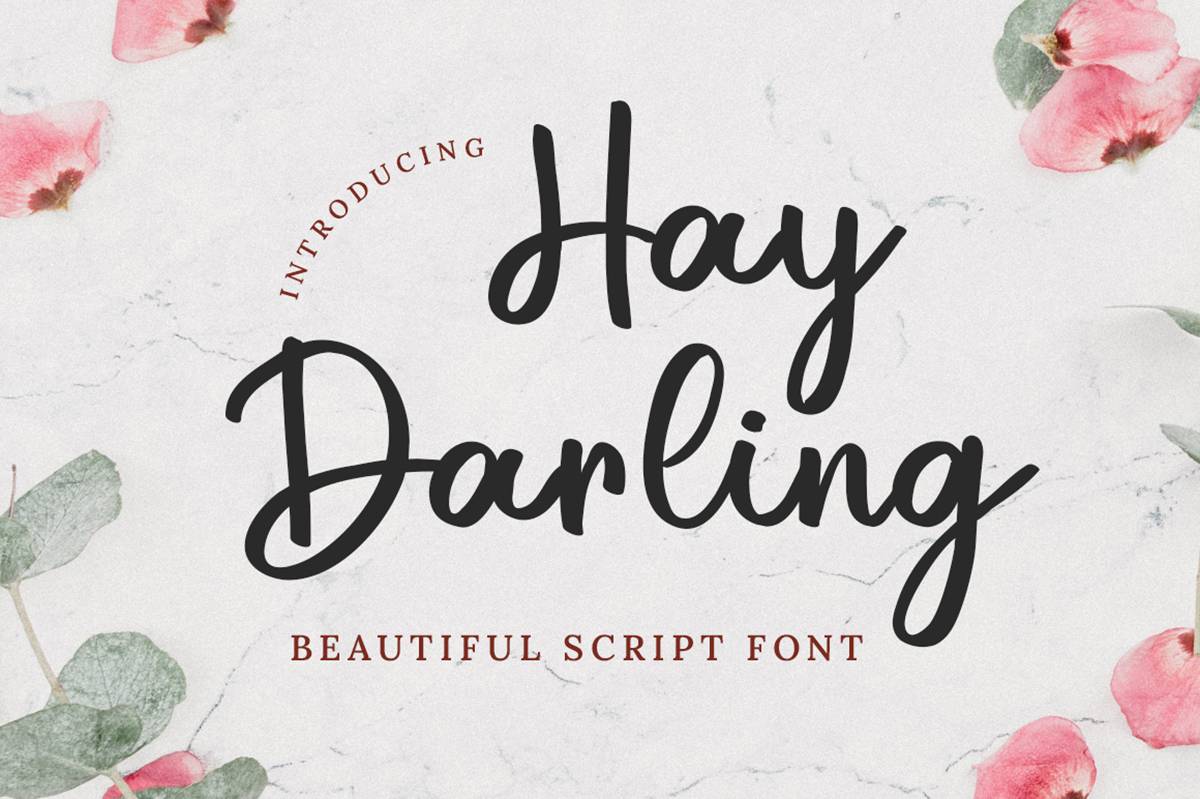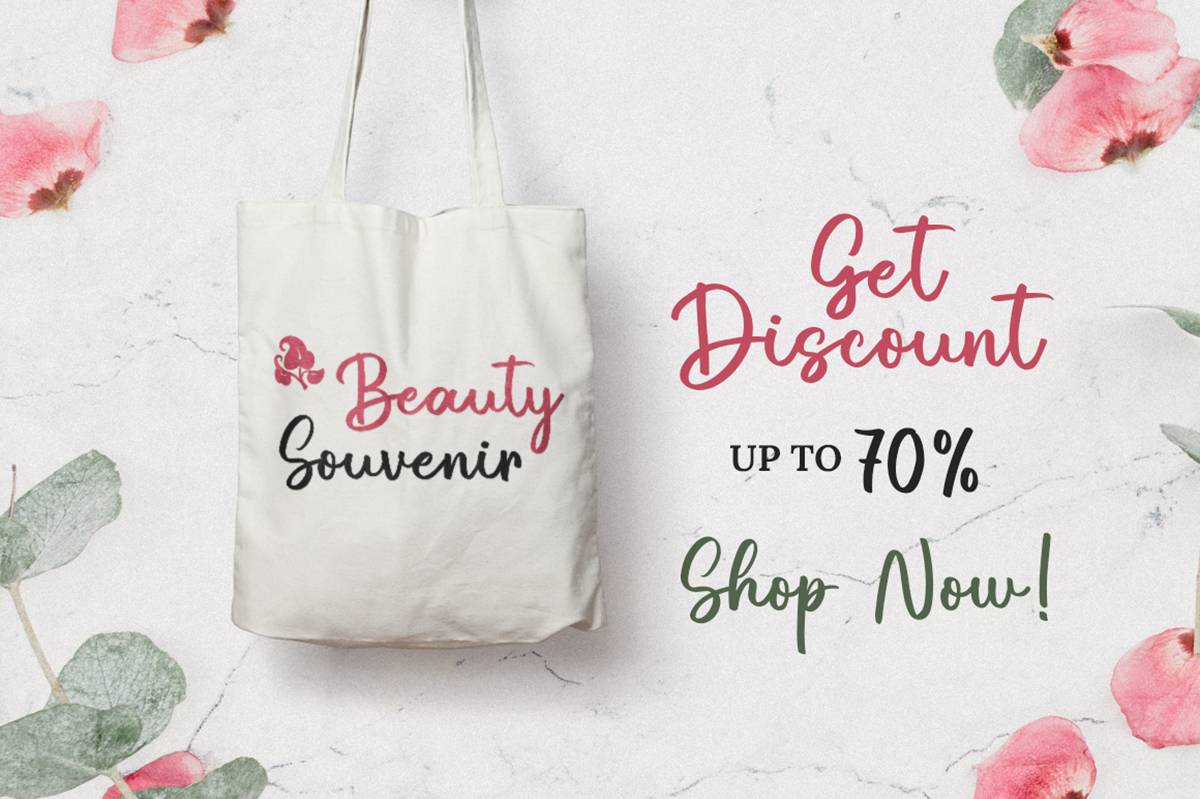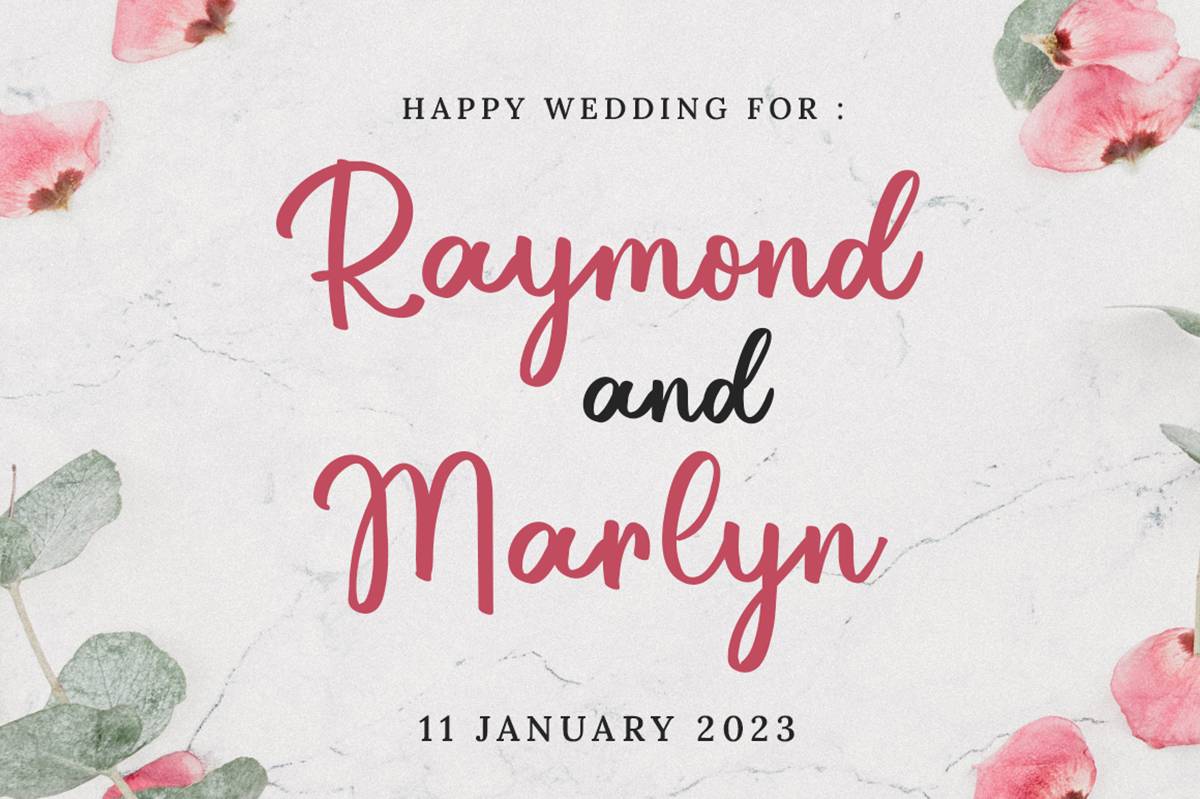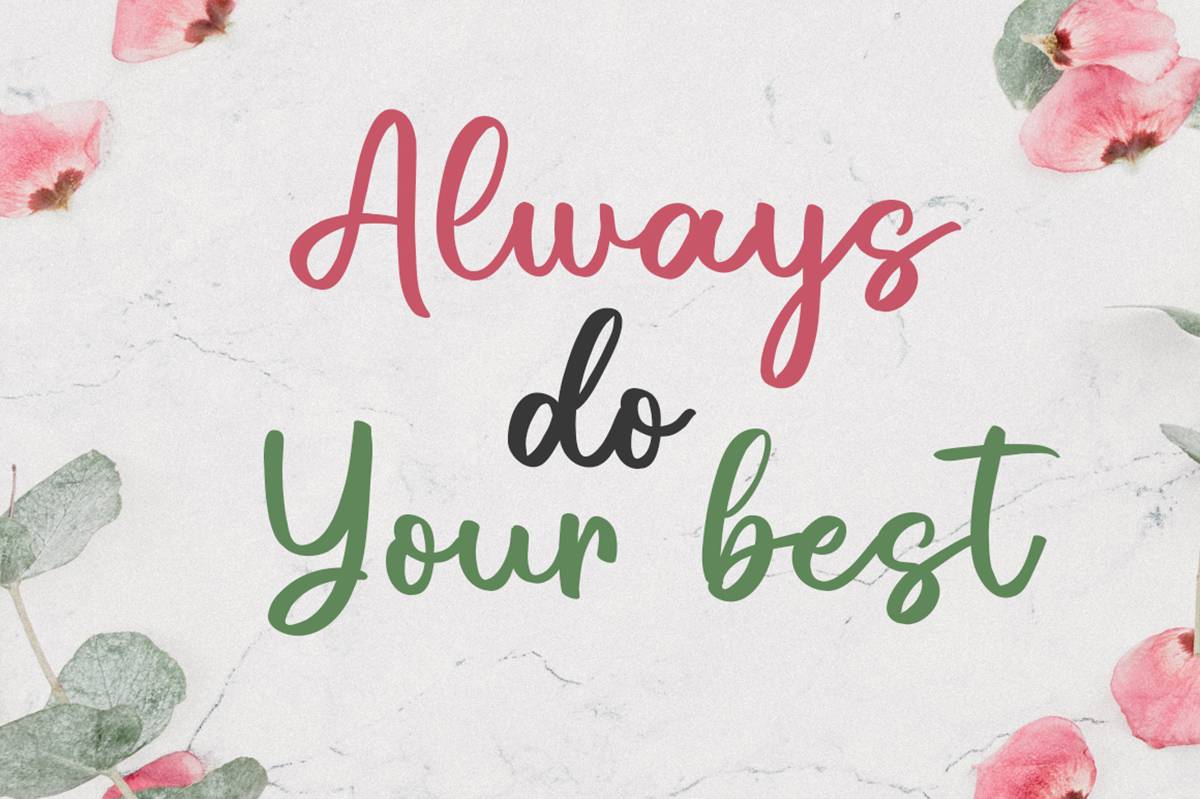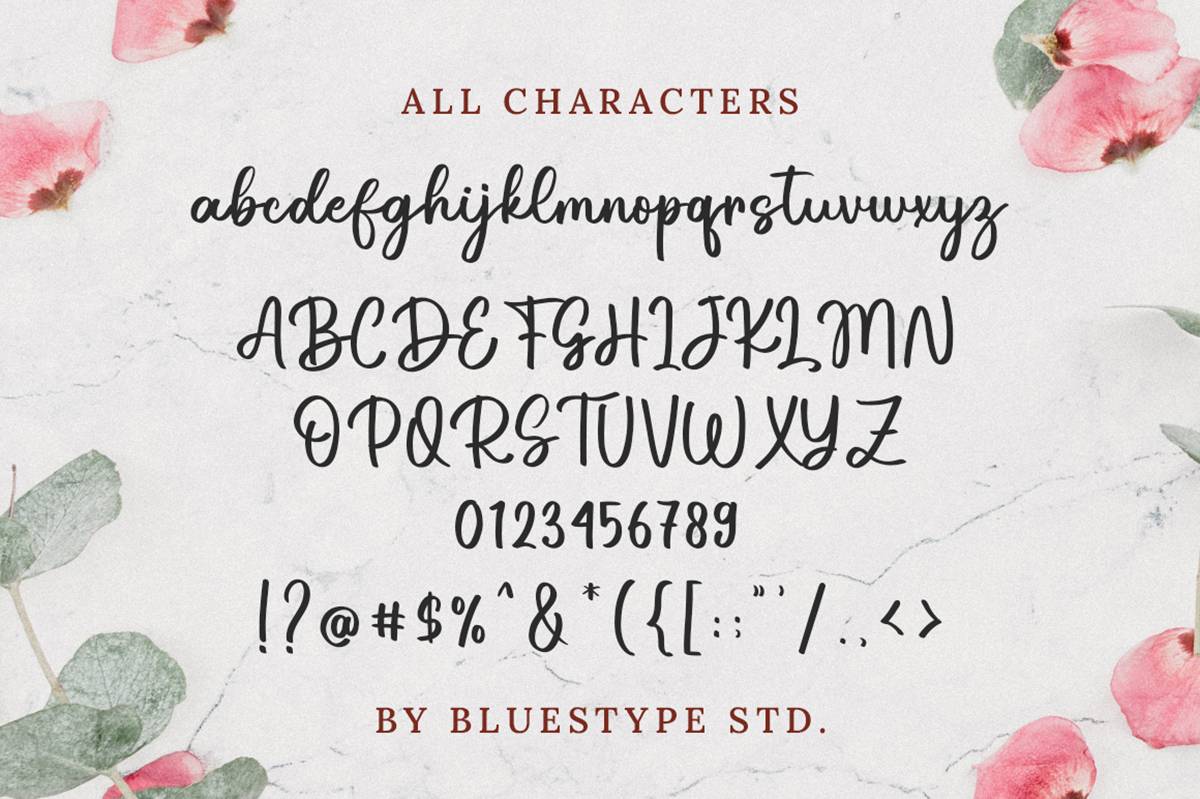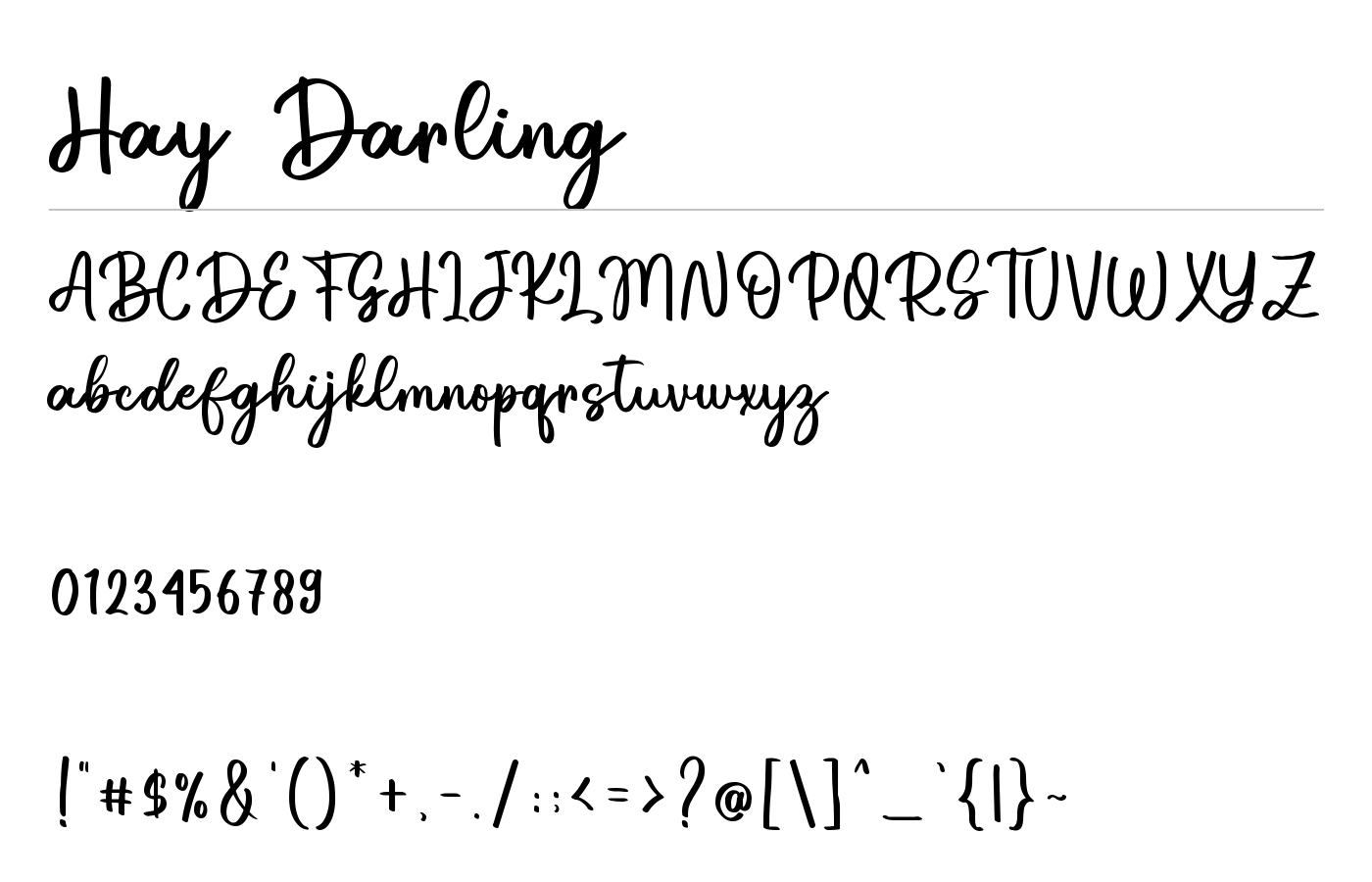
Hay Darling is a playful and charming handwritten script font with smooth, rounded strokes and a casual yet elegant feel. Its lively letterforms and moderate contrast make it perfect for adding a friendly, personal touch to invitations, branding, and social media designs. This font works best in creative projects where warmth and approachability are key.
Hay Darling Font
About Hay Darling Font
| Font family | Hay Darling Font |